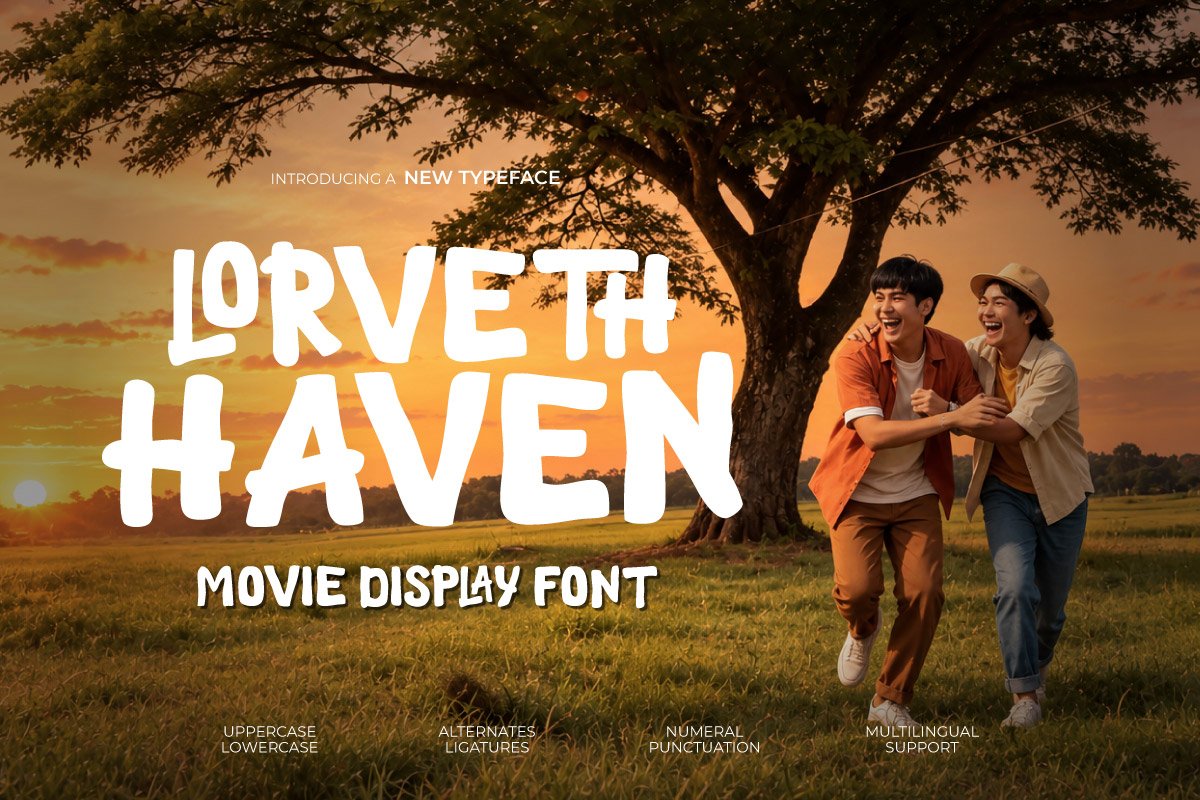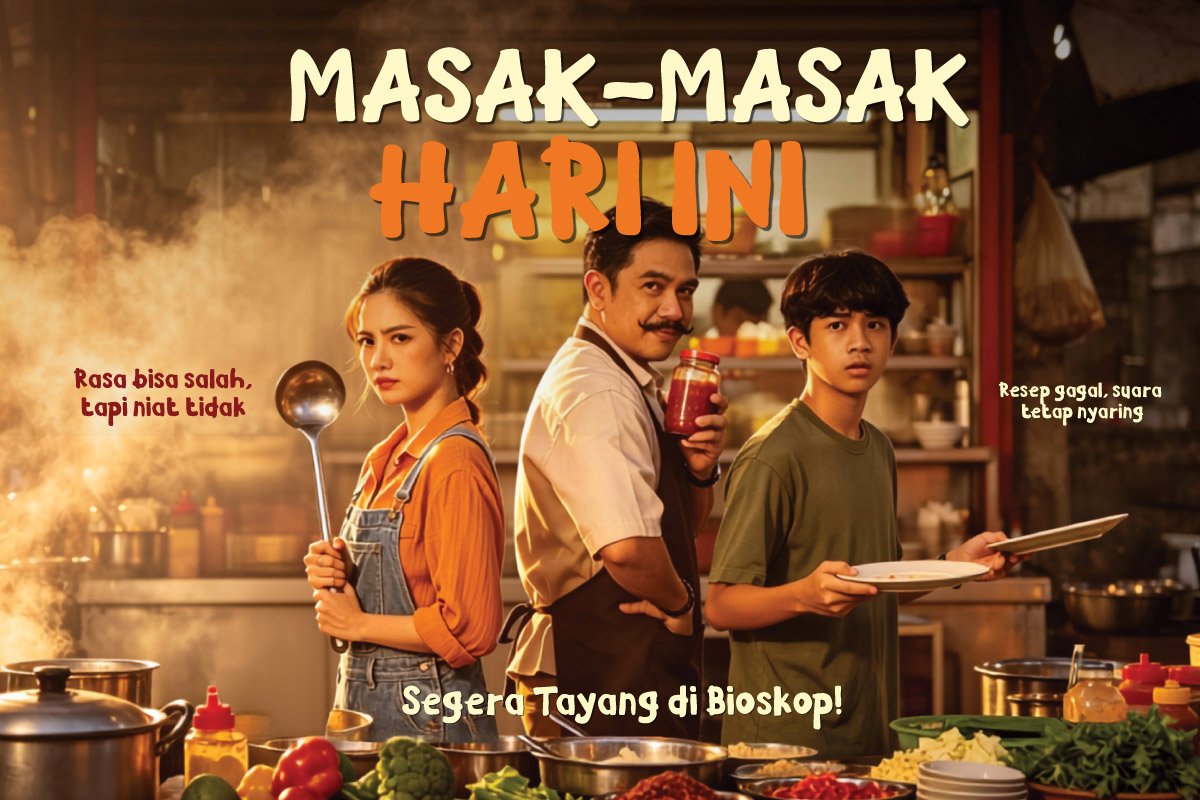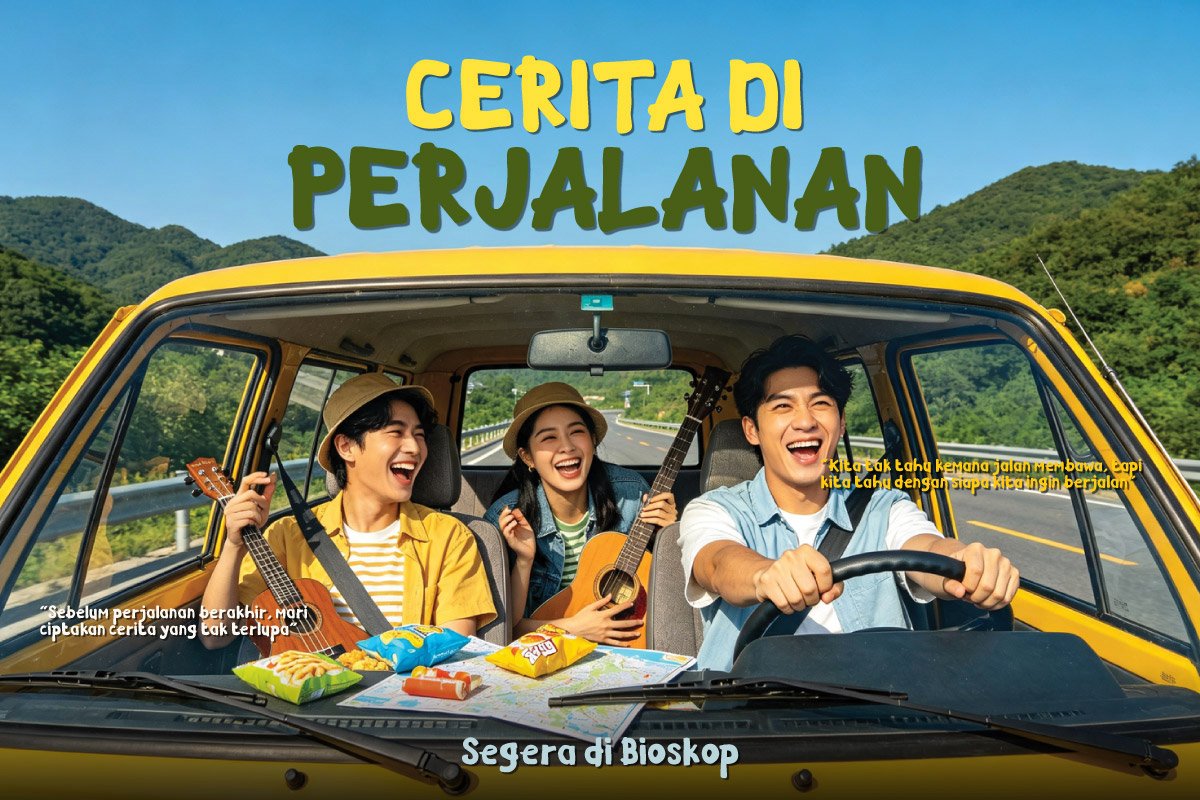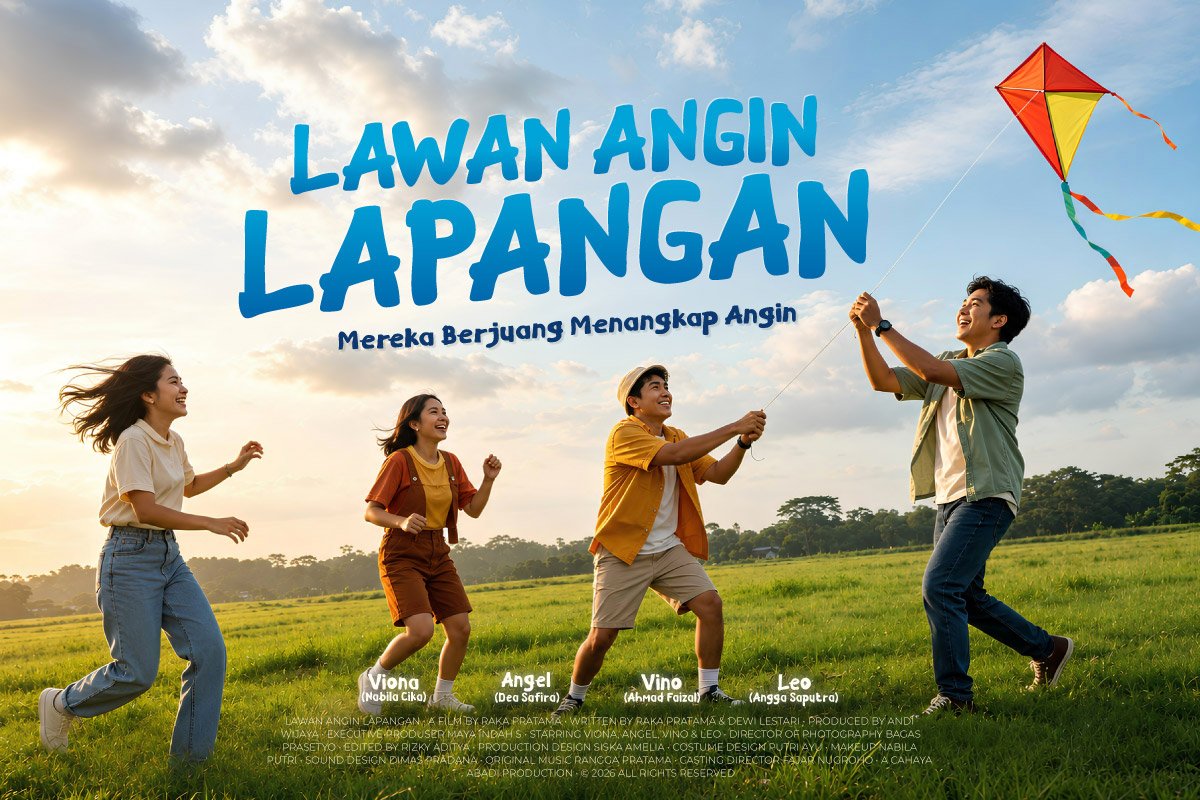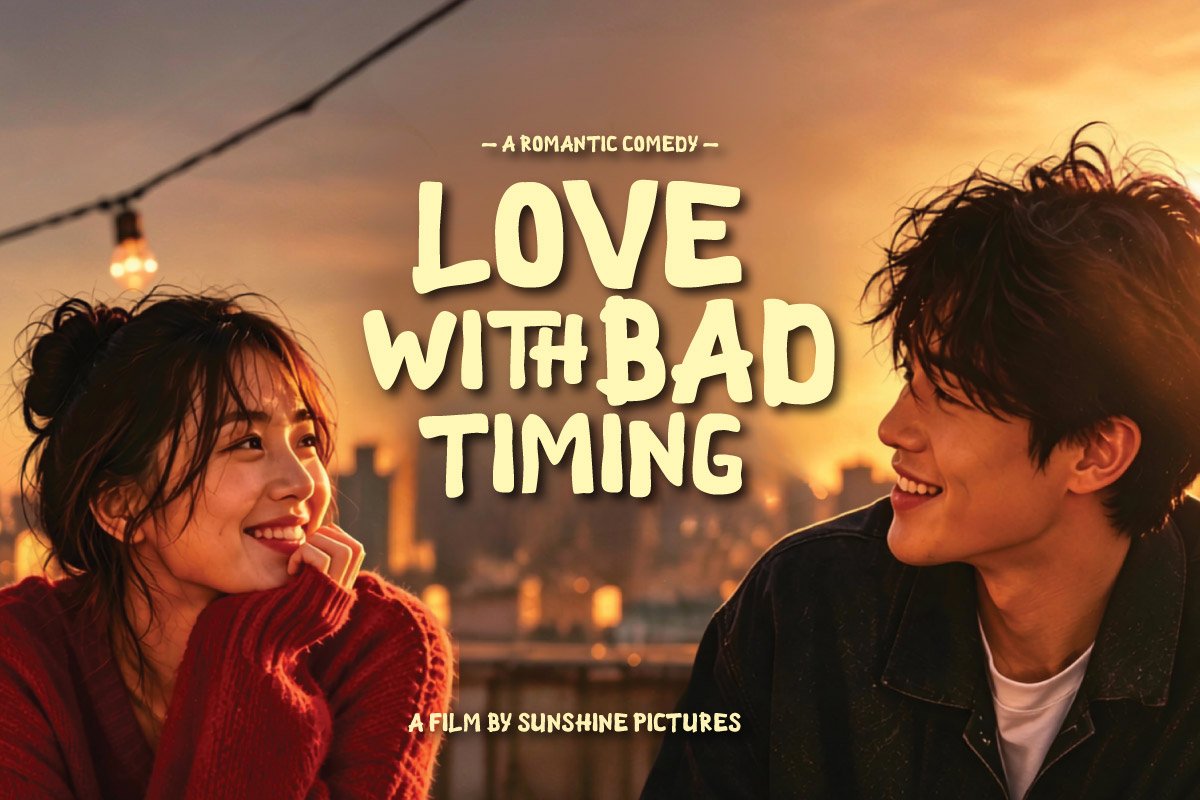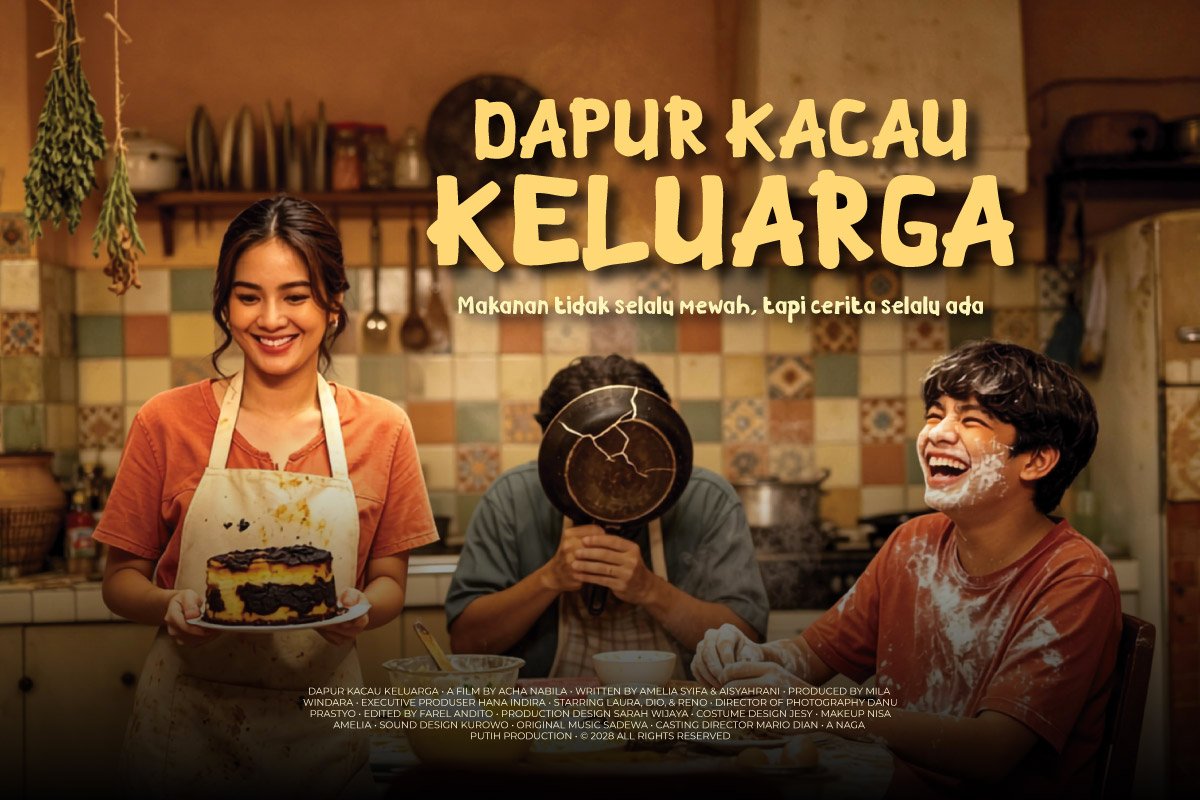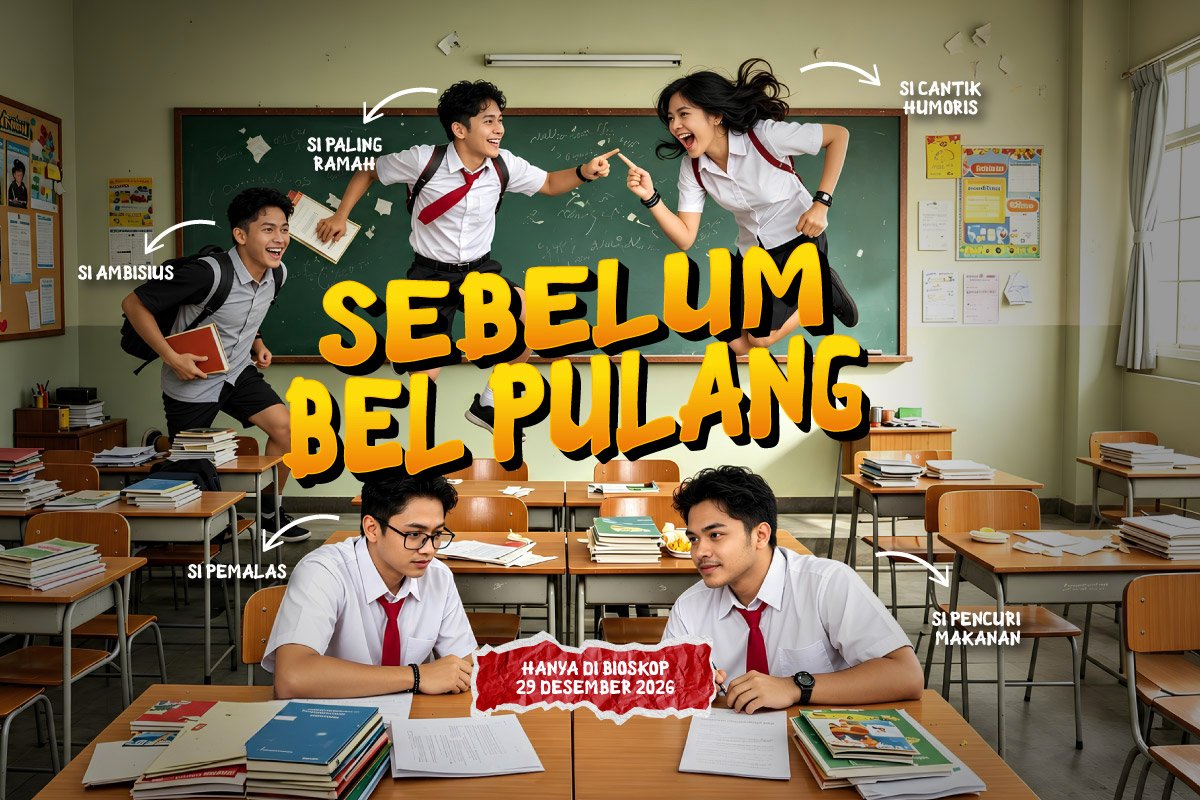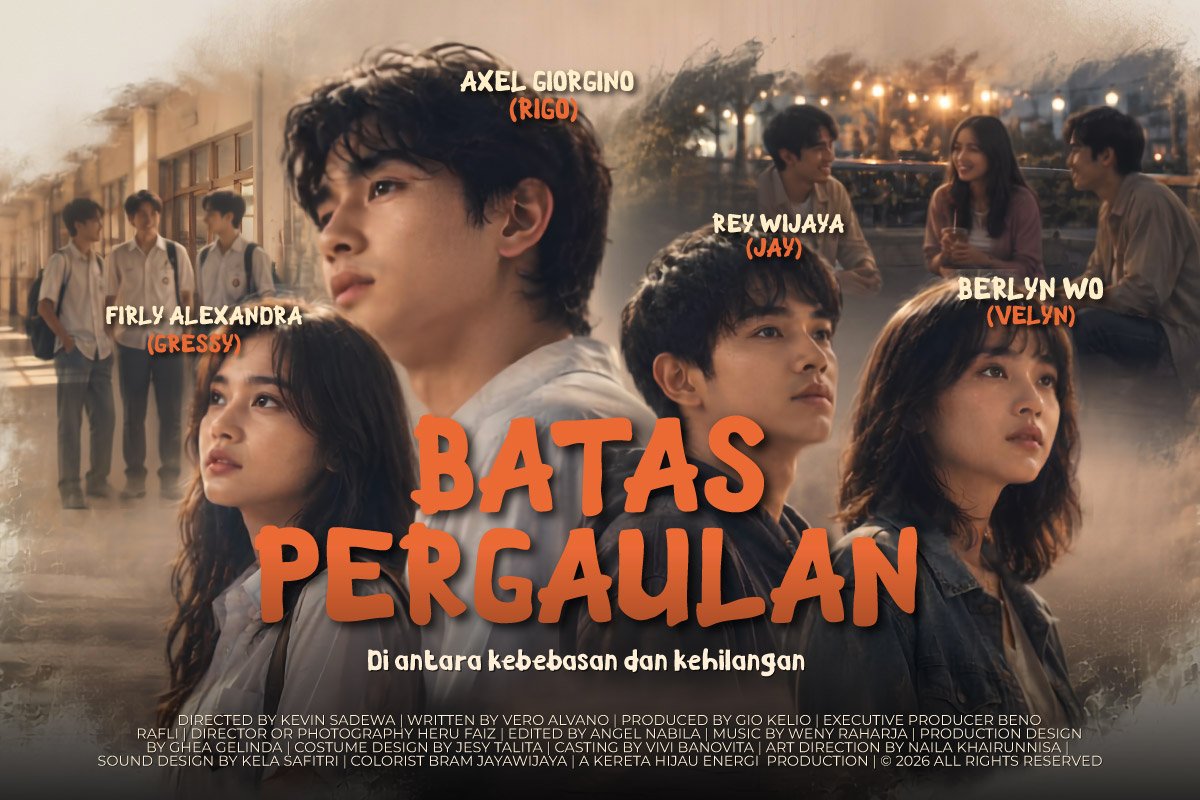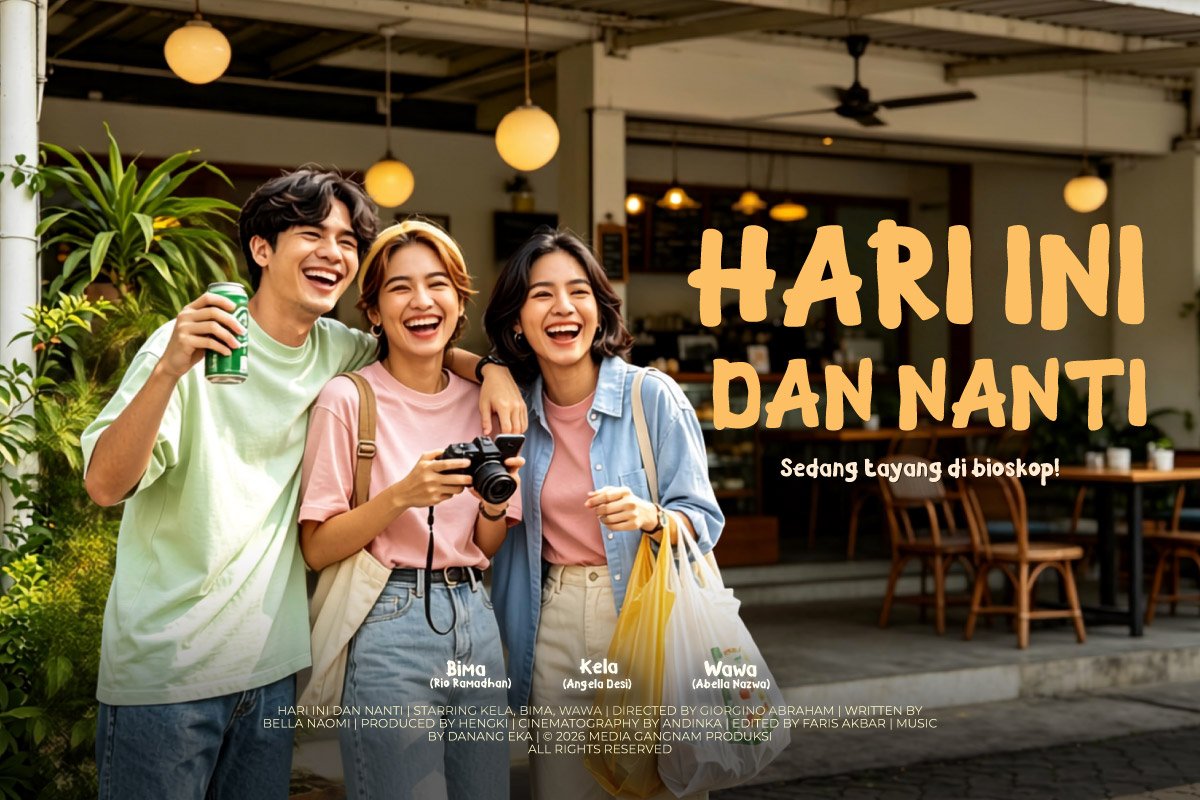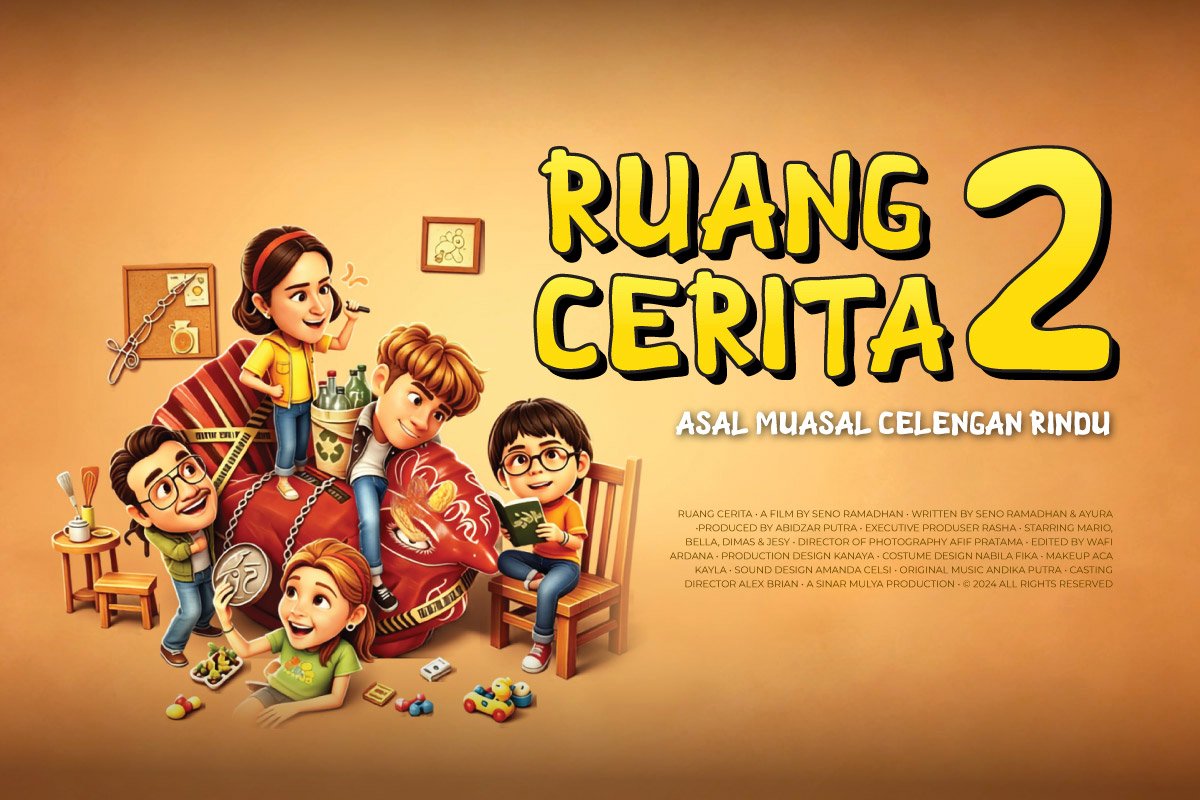
- Lorveth Haven – Movie Display Font
Lorveth Haven is a playful and expressive movie display font designed to bring a sense of adventure, happiness, and cinematic storytelling to your designs. With its bold handwritten style, organic shapes, and friendly character, this font is perfect for eye-catching movie titles, posters, headlines, and promotional artwork.
Inspired by the fun and energetic feeling of family adventures, travel stories, and outdoor exploration, Lorveth Haven works beautifully for children’s movies, adventure films, travel documentaries, nature content, entertainment branding, and big screen promotions.
Its bold display style makes titles instantly noticeable while maintaining a warm, playful personality. Whether you’re creating a movie poster, film title, streaming thumbnail, promotional campaign, documentary cover, or entertainment identity, Lorveth Haven adds a memorable handcrafted touch to your visuals.